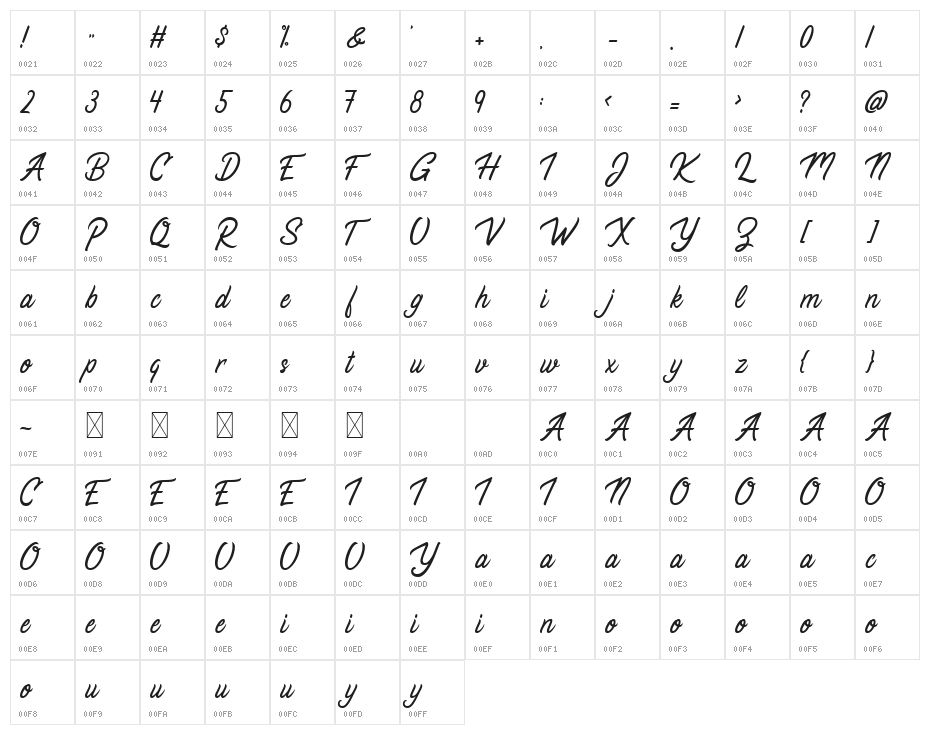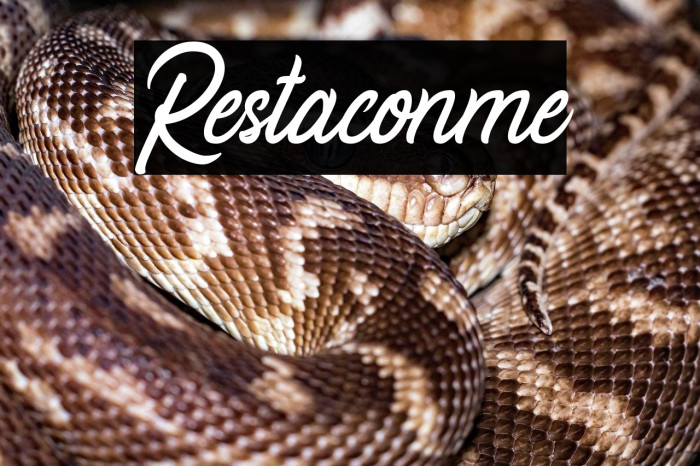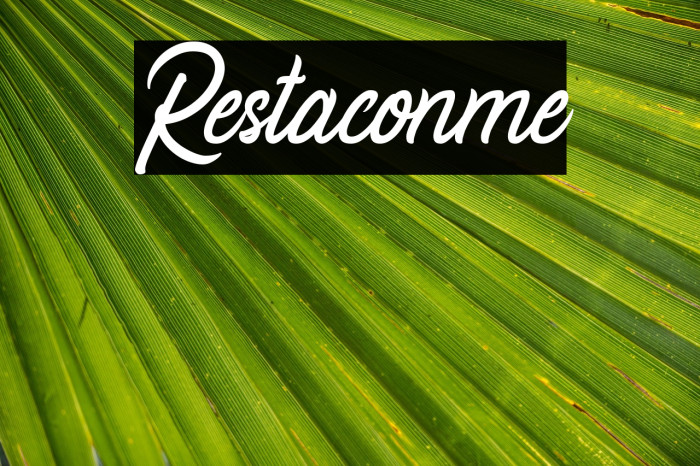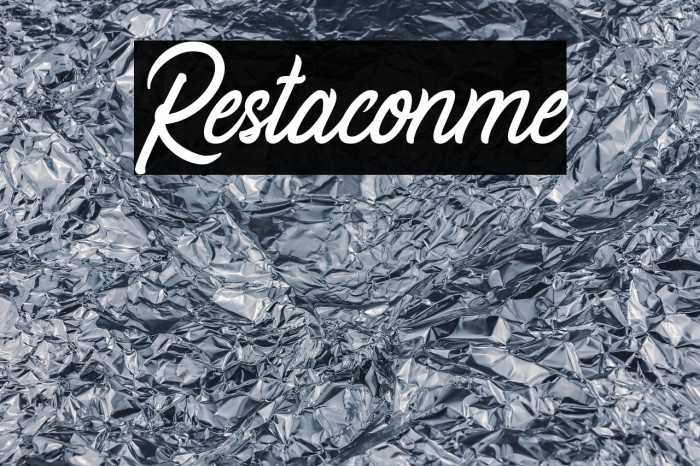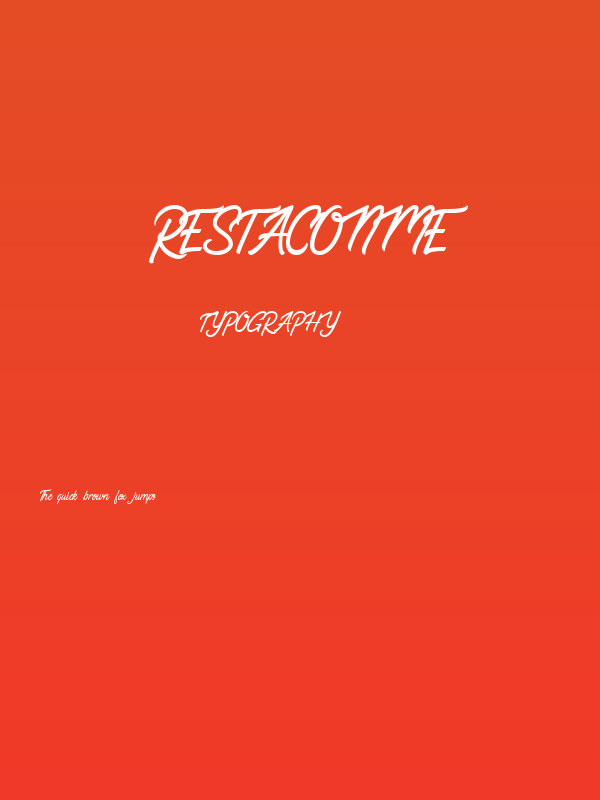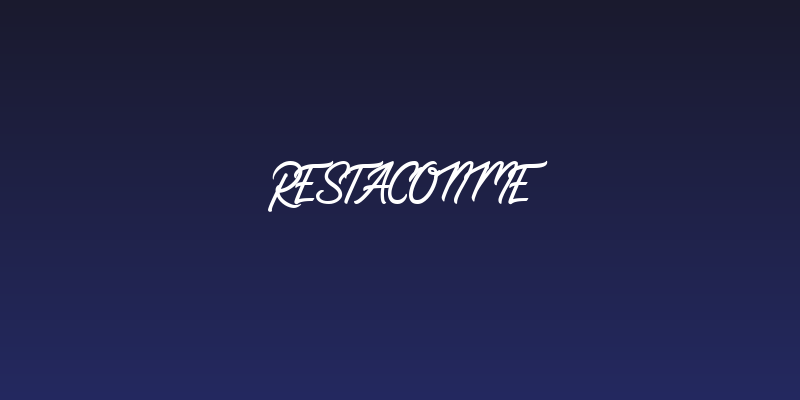
Restaconme Font
| Caso d'uso | Logos, Invitations, Greeting cards |
| Progetti proposti | Ideal for wedding invitations, greeting cards, logos, and branding materials that require a personal or formal touch. |